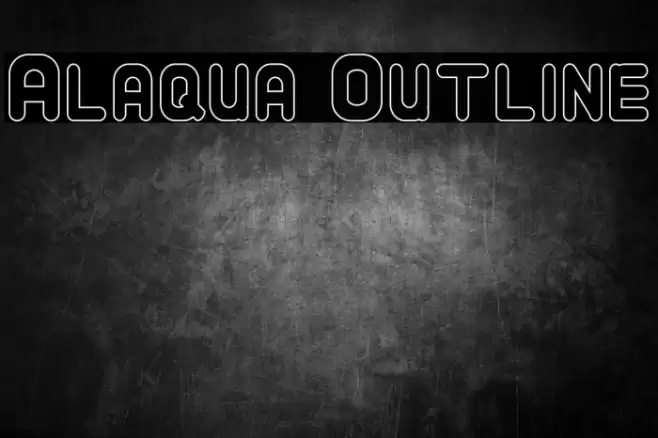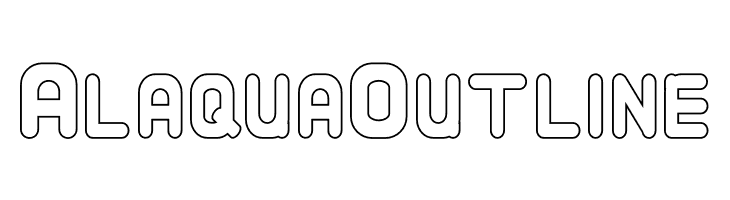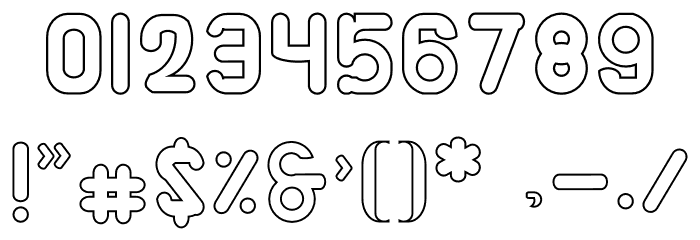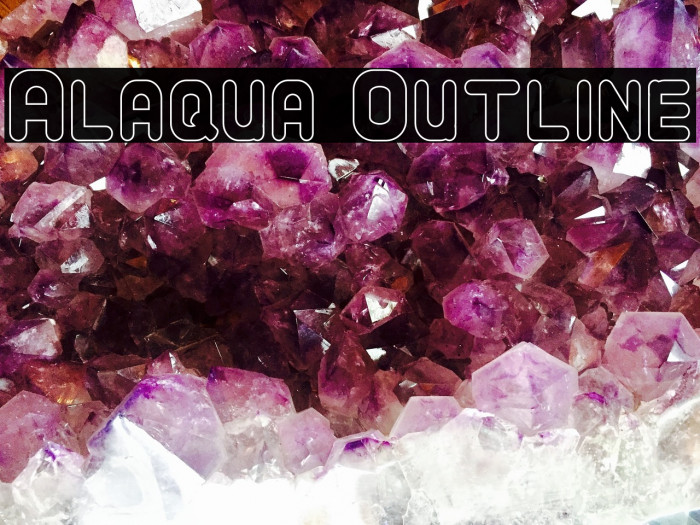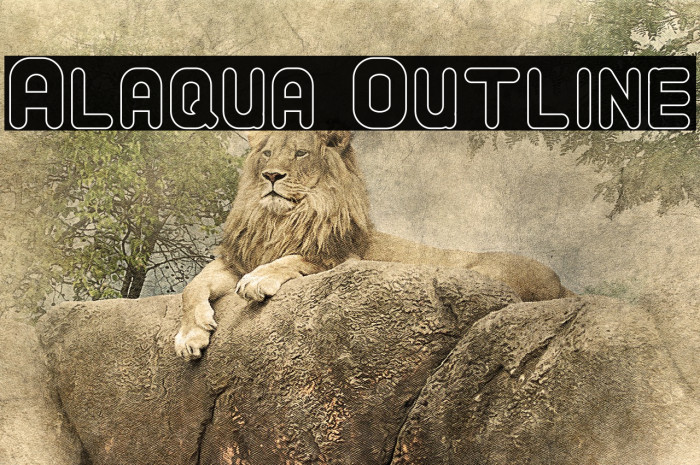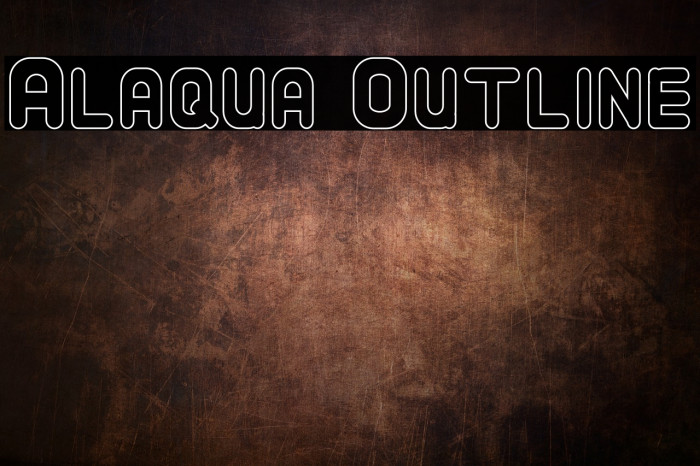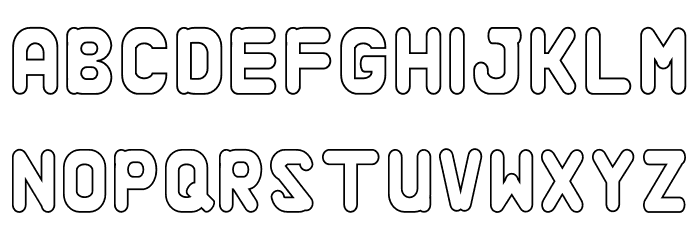
Alaqua Outline Font
Alaqua Outline Description
This font features a modern, geometric outline style that emphasizes clean lines and rounded edges. The characters are uniformly structured, providing a cohesive and balanced appearance. The uppercase and lowercase letters maintain a consistent height and width, contributing to a harmonious visual flow. The numerals and special characters are designed with the same outline effect, ensuring uniformity across all elements. This font's outline design gives it a unique, airy feel, making it suitable for projects that require a contemporary and stylish touch.
A modern, geometric outline font with clean lines and rounded edges from Uncategorized fonts.
- Proposed Projects: Ideal for branding, posters, headlines, and digital media where a modern and stylish look is desired.